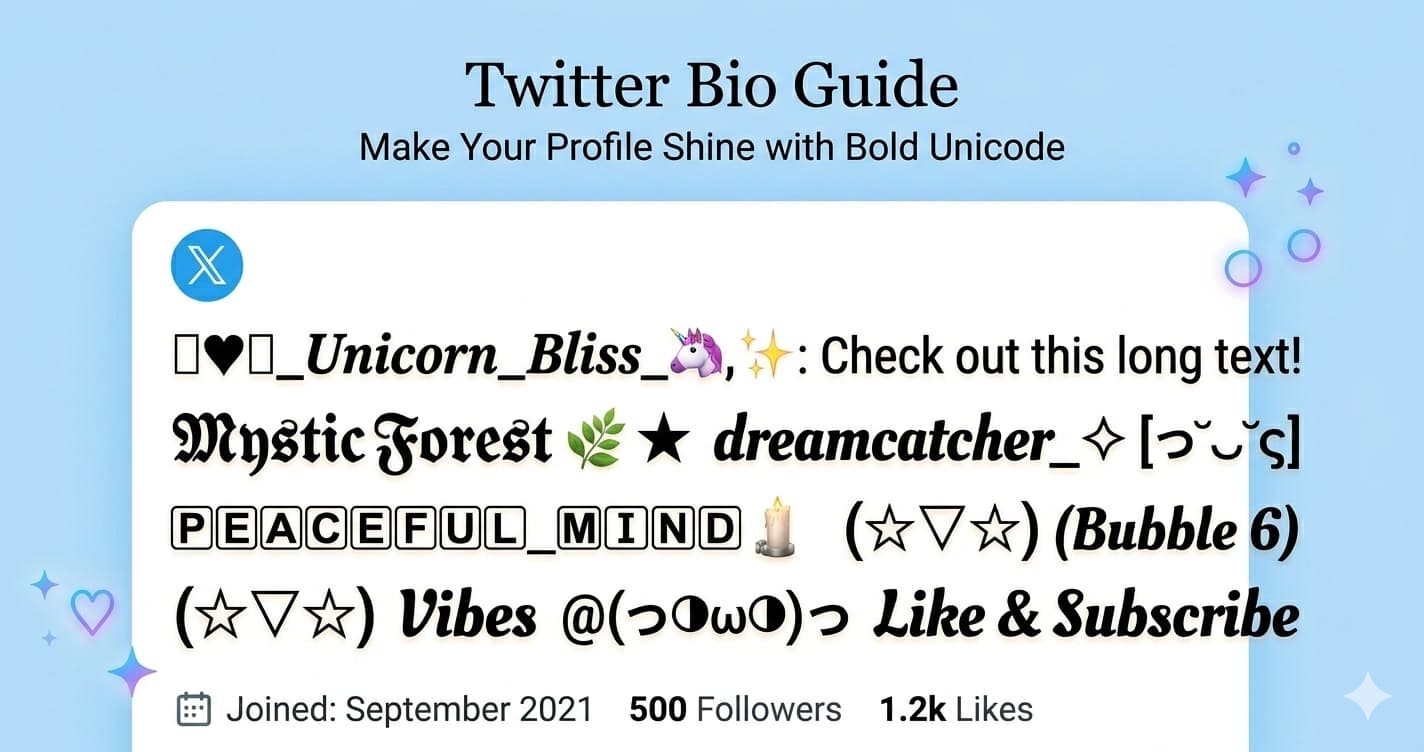
How to Make Your Twitter (X) Bio Stand Out with Unicode Fonts
Twitter (now X) gives you 160 characters for your bio and a display name that everyone sees first. Unicode fonts let you make both more distinctive โ without any third-party apps or workarounds.
What Works on Twitter/X
Unicode characters work in:
- Display name (the bold name at the top of your profile, shown everywhere)
- Bio (160 characters)
- Tweets and replies
- Pinned posts
They don't work in your @username, which is restricted to letters, numbers, and underscores.
This matters for strategy: focus your Unicode styling on your display name and bio โ those are the two elements every profile visitor sees immediately, and the two places where visual distinction has the most impact.
Why Twitter Profiles Are Hard to Differentiate
Twitter profiles are almost completely uniform by design. Your profile picture, display name, @handle, and bio โ that's essentially the full canvas. There's no background customization like MySpace, no grid of posts like Instagram, no pinned story.
In this constrained layout, even small typographic changes create significant visual impact. A display name in bold cursive or small caps stands out from the wall of plain-text names in search results, in mentions, and in follower lists. This is exactly why Unicode fonts work so well on Twitter โ there's so little else to customize.
Best Font Styles for Twitter Bios
๊ฑแดแดสส แดแดแด๊ฑ โ Professional and Distinct
Small caps is one of the best choices for Twitter because it reads as confident and intentional while remaining perfectly legible. On a platform where most bios are plain text, small caps stands out through refinement rather than visual noise.
Small caps characters come from Unicode's Latin Extended blocks and phonetic alphabet ranges. They're lowercase in size but uppercase in appearance โ which creates an unusual, elegant effect that catches the eye without feeling gaudy.
Example bio:
แดกสษชแดแดส ยท แดแด ษชแดแดส ยท ๊ฑแดสแดแดแดษขษช๊ฑแด แดกแดสแด ๊ฑ แดแด @publication Based in New York
Best for: Journalists, writers, editors, consultants, professionals โ anyone who wants distinction without decoration.
๐๐ธ๐ต๐ญ ๐๐พ๐ป๐ผ๐ฒ๐ฟ๐ฎ โ Personal Brand
Bold cursive in a display name immediately reads as a personal brand. It's warm and expressive โ suited to creators, writers, and anyone building a personal presence. The flowing letterforms feel handwritten and personal, which creates a different kind of trust than a plain-text or corporate-feeling name.
Bold cursive is the most popular Unicode font style across social media generally, and it works particularly well on Twitter as a display name. It holds up at the small sizes used in Twitter's notification panels and search results.
Example display name: ๐ข๐ช๐ป๐ช๐ฑ ๐๐ธ๐ต๐ต๐ฒ๐ท๐ผ
Example bio:
๐๐ฑ๐ธ๐ฝ๐ธ๐ฐ๐ป๐ช๐น๐ & ๐๐ช๐ป๐ป๐ช๐ฝ๐ฒ๐ฟ๐ฎ ๐๐ฒ๐ต๐ถ Documenting the world one frame at a time โฆ Based in Amsterdam
Best for: Creators, photographers, lifestyle accounts, personal brands, artists.
๐๐ฌ๐ฑ๐ฅ๐ฆ๐ โ Strong Identity
Gothic text in a Twitter name or bio signals clear aesthetic identity. The dark, medieval letterforms look commanding against Twitter's clean white/gray UI โ especially effective for music artists, culture critics, and alternative fashion accounts.
Gothic (Mathematical Fraktur) characters come from the Unicode block originally designed for formal German blackletter script. On social media, they communicate seriousness, edge, and strong aesthetic conviction.
Example display name: ๐๐๐ช๐ข๐ฐ ๐ ๐ฉ๐๐ ๐จ
Example bio:
๐๐ฒ๐ฐ๐ฆ๐ ๐๐ซ๐ก ๐ ๐ฒ๐ฉ๐ฑ๐ฒ๐ฏ๐ข Independent artist ยท Booking inquiries open ๐ธ New single monthly
Best for: Music artists, fashion accounts, culture critics, alternative aesthetics, dark art communities.
๐ฏ๐๐๐๐๐ ๐พ๐๐๐๐๐ โ Tech and Academic
Double struck text has a mathematical, analytical look popular among developers, researchers, and tech-focused accounts. The characters come from "blackboard bold" โ the style used on academic chalkboards to write special mathematical sets like the real numbers โ or complex numbers โ.
On Twitter, double struck works well for programmers, scientists, academics, and anyone in STEM who wants a distinctive name that signals their intellectual identity.
Example display name: ๐ธ๐๐๐ฉ ๐๐ ๐ฃ๐๐๐
Example bio:
๐๐ ๐๐ฅ๐จ๐๐ฃ๐ ๐ผ๐๐๐๐๐๐๐ฃ Building tools people actually use Open source ยท TypeScript ยท Systems
Best for: Developers, scientists, academics, researchers, tech educators.
๏ผถ๏ฝ๏ฝ๏ฝ๏ฝ๏ฝ๏ฝ๏ฝ๏ฝ โ Aesthetic Signaling
Full-width characters create the iconic wide, spaced look associated with lo-fi and aesthetic internet culture. Less common on Twitter than on Instagram or TikTok, but highly distinctive when used.
Important: Full-width characters count as 2 characters each in Twitter's 160-character bio limit. Plan accordingly โ you effectively have 80 characters of display space if using full vaporwave.
Overusing emphasis in tweets: If every tweet has styled text, the visual distinction disappears. Use it selectively โ for thread starters, key quotes, or your pinned post.